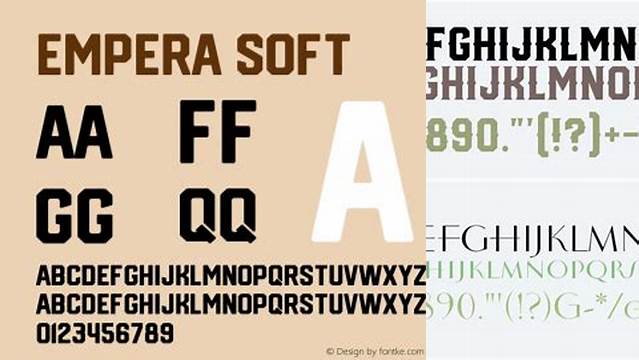
Hey guys, are you looking for a font that's both stylish and easy on the eyes? Well, look no further! Empera Soft Font is a fantastic choice, and the best part? You can get a free TTF download! This article is your ultimate guide to everything you need to know about this awesome font. We'll dive into what makes Empera Soft Font so special, how to download it safely, and how you can use it to level up your designs. Get ready to give your projects a fresh, modern look with this versatile font! Let's get started!
Empera Soft Font: What Makes It Special?
Alright, let's talk about what makes Empera Soft Font stand out from the crowd. First off, it has a clean, modern aesthetic. The letters are rounded and soft, which gives it a friendly and approachable vibe. Think of it as the font equivalent of a cozy blanket – it's inviting and comfortable to look at. This makes it perfect for a wide range of applications, from website headers and social media graphics to posters and presentations. Unlike some fonts that can be a bit harsh or rigid, Empera Soft Font exudes a sense of warmth and elegance. The designers clearly put a lot of thought into the details, ensuring that each letter flows seamlessly into the next. This creates a visually pleasing experience for the reader, making your content more engaging and enjoyable. The font also has a good balance between legibility and style. Some fonts prioritize style over readability, making them difficult to decipher, but Empera Soft Font manages to achieve both. It's easy to read at various sizes, so you don't have to worry about your text becoming a blurry mess. This is crucial for any font you plan to use for body text or important information. The versatility of Empera Soft Font is another key aspect. It works well in both headings and body text, which means you can use it consistently throughout your designs. This creates a cohesive and professional look that will impress your audience. You can experiment with different weights and styles to achieve the perfect look for your specific project. Whether you're creating a logo, designing a website, or crafting a social media post, Empera Soft Font has you covered. The careful consideration of the font's design ensures a visual experience that prioritizes both aesthetics and functionality.
Using Empera Soft Font: Best Practices and Tips
Okay, you've got your Empera Soft Font free TTF download – awesome! Now, let's talk about how to make the most of it. First, think about where you want to use the font. It's perfect for headings, subheadings, and short bursts of text. Its clean and modern look is ideal for websites, social media graphics, and presentations. For body text, consider using it for smaller blocks of text and adjusting the font size for maximum readability. Avoid using it for very long paragraphs, as the soft curves might make it slightly harder to read at a smaller size. Experiment with different font sizes and weights. Empera Soft Font comes in various weights, such as regular, bold, and italic. Use these to create visual hierarchy and emphasize important information. Bold text is great for headings and key phrases, while italics can be used for emphasis or quotes. Pairing Empera Soft Font with other fonts is another way to create a stunning design. Consider pairing it with a more classic or geometric font for body text to provide a balanced look. Make sure the fonts complement each other and that the combination is easy to read. When using the font for web design, optimize it for different devices. Ensure the text is responsive and readable on both desktop and mobile screens. Use appropriate line spacing and padding to create a comfortable reading experience. Always test your designs to see how Empera Soft Font looks in context. Print out a draft or view it on different screens to ensure it meets your needs. Be creative and have fun. Don't be afraid to experiment with different layouts and styles. Empera Soft Font is a versatile font that can be adapted to many design styles. By following these best practices, you'll be able to create stunning designs with Empera Soft Font. Your projects will look professional, modern, and engaging!
Combining Empera Soft Font with Other Fonts
Fonts with Excellent Readability for Body Text
Readability is key when it comes to body text. Even after scoring your Empera Soft Font free TTF download, you need to think about other fonts that excel in making text easy to read and digest. The goal is to create a comfortable reading experience for your audience, especially when it comes to longer blocks of text. Open Sans is a fantastic option. Designed for readability, it's a popular choice for both web and print design. It has a simple, clean design that makes it easy to read at various sizes. Another great option is Lato. Lato has a friendly and inviting appearance and excellent readability. It's a versatile font that can be used for body text and headings. Consider using Roboto. This font offers excellent readability and a clean, modern design. This makes it a good choice for a variety of projects. Source Sans Pro is another great option. This font is specifically designed for use in user interfaces. With excellent readability at different sizes, it's an excellent choice for body text. When choosing a font for body text, consider the following: the font's x-height. This affects the height of the lowercase letters, which impacts readability. A larger x-height generally improves readability. The font's letter spacing. Adequate letter spacing helps to create a comfortable reading experience. Line spacing (or leading) is also important for readability. It helps separate lines of text and makes them easier to follow. The font's weight. Choose a font weight that is appropriate for the body text. Regular weight is generally best for body text. Always test the font in different contexts. See how it looks on different devices and at different sizes. Consider the overall design of your project. Make sure the font fits with the overall style. Consider the target audience. Choose a font that is appropriate for your audience. By carefully selecting a font for body text, you can significantly improve the readability and overall effectiveness of your design. Your audience will thank you for creating a comfortable and enjoyable reading experience! Make sure you check for those fonts even after your free TTF download.